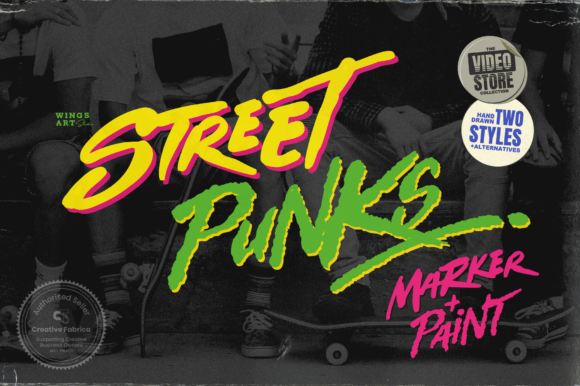
Introducing Street Punks Font, the ultimate choice for unleashing your creative side with its captivating graffiti-inspired design. Designed by the talented wingsart, this display font brings a futuristic, street art vibe that will make your designs stand out from the crowd.
Are you ready to make a bold statement? Street Punks Font is here to help you do just that. With its edgy and rebellious nature, this font is perfect for expressing your unique style and attitude. Whether you're creating designs for t-shirts, sportswear, logos, advertisements, or clothing, Street Punks Font will elevate your creations to a whole new level.
Imagine the impact of your designs when they are infused with the spirit of urban culture and the energy of street art. Street Punks Font adds a touch of raw authenticity that will resonate with your audience and leave a lasting impression. It's more than just a font; it's an artistic expression that speaks volumes.
With Street Punks Font, you have the power to captivate your viewers and draw them into your world. Its bold and vibrant strokes command attention, making it the perfect choice for eye-catching headlines, titles, and captions. Let your words come alive and leave a lasting impact on your audience.
But it doesn't stop there. Street Punks Font is not only visually striking but also incredibly versatile. Its flexibility allows it to seamlessly blend into various design styles, making it suitable for a wide range of projects. From movie posters to music album covers, from streetwear brands to gaming graphics, this font adapts effortlessly to any creative vision.
We understand that finding the perfect font for your project is crucial. That's why Street Punks Font is meticulously crafted to meet your needs. Its legibility ensures that your message is delivered with clarity, while its artistic elements add a touch of excitement and personality.
In the world of video filming, Street Punks Font has already earned its place as one of the best fonts for creating captivating visuals. Its urban aesthetics and modern appeal make it a go-to choice for filmmakers and content creators who want to add an extra layer of creativity to their projects.
Don't settle for ordinary fonts that fade into the background. Choose Street Punks Font and let your designs speak louder than words. Transform your creations into a visual masterpiece that leaves a lasting impression on your audience.